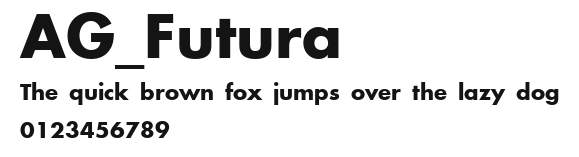
• Font Name: AG_Futura
• Font ID: FontMonger:AG_Futura Bold
• Full Font Name: AG_Futura Bold
• PostScript Name: AGFuturaBold
• Copyright: © 1992, Tilde Ltd. AG Fonts Collection. Created by Andrejs Grinbergs.
About AG_Futura.ttf
AG_Futura.ttf is a modern, elegant sans-serif font designed for ultimate readability and visual harmony. Perfect for branding, headlines, web design, and print materials.